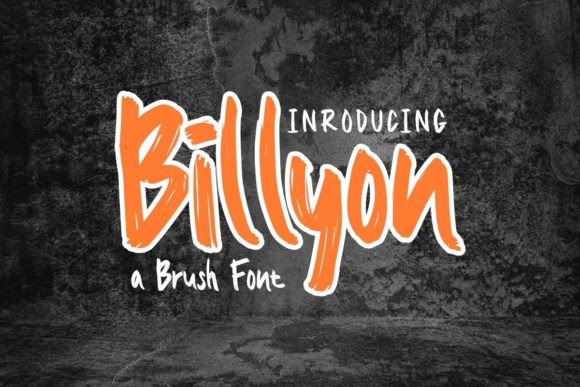
**Journey into the Realm of Billyon Font: Where Creativity and Expression Unite**
In the vast expanse of digital typography, where aesthetics and functionality intertwine, there lies a font that captivates hearts and transforms visions into reality—the Billyon Font. With its striking presence and alluring charm, Billyon is not merely a collection of letters and glyphs; it is an artistic gateway that unlocks the doors to boundless creativity and self-expression.
Crafted with meticulous care by the visionary minds at Font-Tastic, Billyon embodies the essence of display fonts, effortlessly blending boldness and elegance. Its meticulously brushed strokes evoke a sense of artistry and craftsmanship, inviting you to explore new horizons of visual storytelling.
**Unleash Your Creative Potential with Billyon Font**
Whether you're a seasoned designer seeking to elevate your projects or a budding entrepreneur venturing into the world of personalized merchandise, Billyon Font is your trusted companion. Its versatility knows no bounds, adapting seamlessly to a myriad of creative endeavors:
- **T-Shirt Printing:** Transform ordinary garments into canvases of self-expression. Billyon's bold strokes and captivating presence make it the perfect choice for creating eye-catching T-shirt designs that speak volumes about your unique style.
- **Wall Art:** Elevate your living spaces with stunning wall art that reflects your personality and taste. Billyon's intricate details and artistic flair will transform your walls into captivating focal points that inspire and intrigue.
- **Posters:** Create dynamic and impactful posters that convey messages, promote events, or showcase your creative vision. Billyon's ability to command attention makes it the ideal font for posters that demand to be noticed.
- **Branding and Logos:** Establish a strong and memorable brand identity with Billyon Font. Its distinctive character and visual appeal will help your brand stand out from the crowd, leaving a lasting impression on your audience.
- **Packaging Design:** Elevate your product packaging with Billyon's sophisticated charm. Its ability to convey elegance and exclusivity will enhance the perceived value of your products, attracting discerning customers.
**Embrace the Billyon Experience: A World of Endless Possibilities**
With Billyon Font, you're not just downloading a font; you're embarking on a creative journey where imagination reigns supreme. Its striking presence and versatility will ignite your creativity, empowering you to weave your unique narrative through captivating designs.
So, dive into the realm of Billyon Font today and let your creative spirit soar. Let your designs speak louder than words, captivating audiences and leaving an indelible mark on the world. Billyon is more than just a font; it's a gateway to a world of self-expression, creativity, and boundless possibilities.